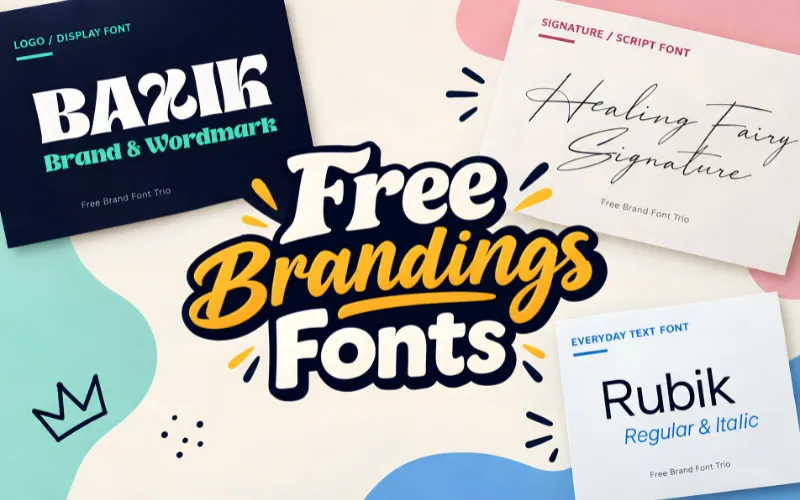
Free Branding Fonts for Logos, Signatures & Brand Text
TL;DR
- Supports English & major Western & Central European languages
- Includes logo, script, and everyday text fonts
Stop mixing random fonts that never quite match. Build a consistent brand look in minutes with this –
Free Branding Font Trio
Get 3 branding fonts designed to work together, so your-
- Logo
- Signature touches
- Everyday text
all look like they came from the same brand.
These fonts support English & major Western & Central European languages.
Use them to create –
- Logos and wordmarks
- Signatures on invoices, prints, and thank-you cards
- Instagram and TikTok graphics
- Packaging and product labels
- Website headers and body text
What’s Inside?
- BAXIK Font:
Bold display font for logos & wordmarks. - Healing Fairy Signature Font:
Elegant script font for signatures, cards, & personal branding. - Rubik Text Font:
Clean everyday font for websites, social posts, & brand content.
Preview of the Free Branding Fonts Trio
Why Download This Free Font Trio?
- Start with 3 fonts that already match, instead of hunting for hours.
- Use one font for your logo, one for your signature, and one for everything else.
- Stay consistent across your logo, packaging, and social posts.
- Look put-together the moment customers see your brand.
- Logo / Display Font: 1
- Signature / Script Font: 1
- Body Text Font: 1 (Regular + Italic)
- Ligatures: Connected-letter ligatures on the signature font; extra ligatures, fractions, & alternate number styles on the text font
What is included in this free font bundle?
You get 1 bold logo font, 1 signature script font, and 1 everyday text font with a matching italic style.
What can I use these fonts for?
You can use them for logos, signatures, social media graphics, packaging, product labels, and everyday brand text.